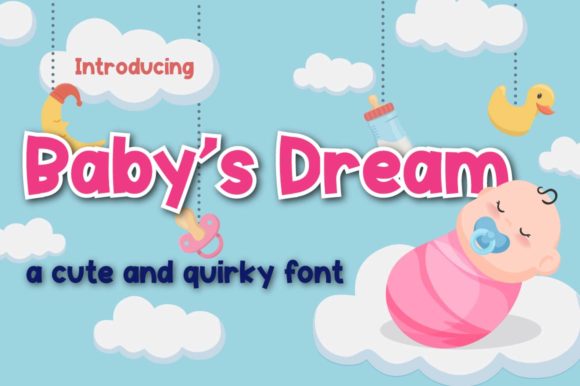
Baby’s Dream Font: The Ultimate Guide to This Whimsical Display Font
Baby’s Dream is a cute and quirky font that has captured the hearts of designers and crafters alike. This enchanting display font has the power to turn any creative idea into a true standout, making it a must-have for anyone looking to add a touch of magic to their projects. In this comprehensive guide, we’ll dive into the world of Baby’s Dream font, exploring its features, uses, and benefits.
The Charm of Baby’s Dream Font
Baby’s Dream font is a one-of-a-kind display font that exudes a sense of playfulness and charm. Its unique and quirky design makes it perfect for projects that require a touch of whimsy, such as children’s books, baby shower invitations, and nursery decor. The font’s enchanting letters are carefully crafted to evoke a sense of wonder and fantasy, making it an excellent choice for designers and crafters who want to create something truly special.
Key Features of Baby’s Dream Font
- Unique and Quirky Design: Baby’s Dream font boasts a distinctive design that sets it apart from other fonts. Its letters are carefully crafted to create a sense of playfulness and charm.
- Enchanting Display Font: This font is perfect for display purposes, making it ideal for headlines, titles, and other attention-grabbing elements.
- High-Quality Letters: Each letter in Baby’s Dream font is meticulously designed to ensure high-quality and clear representation, even at large sizes.
Uses of Baby’s Dream Font
Baby’s Dream font is an incredibly versatile font that can be used in a wide range of projects, including:
- Children’s Books and Nursery Rhymes: The font’s playful and whimsical design makes it perfect for children’s books and nursery rhymes.
- Baby Shower Invitations and Decor: Baby’s Dream font is an excellent choice for baby shower invitations, decorations, and other celebratory materials.
- Signs and Posters: The font’s bold and eye-catching design makes it ideal for signs and posters that require attention-grabbing headlines.
- Digital and Print Media: Baby’s Dream font can be used in a variety of digital and print media, including social media graphics, blogs, and magazines.
Benefits of Using Baby’s Dream Font
Using Baby’s Dream font in your projects offers a range of benefits, including:
- Unique and Memorable Designs: Baby’s Dream font helps create unique and memorable designs that stand out from the crowd.
- Time-Saving: The font’s high-quality letters and easy-to-use design save time and effort in the design process.
- Professional-Looking Results: Baby’s Dream font helps create professional-looking results that are perfect for both personal and commercial projects.
Tips for Using Baby’s Dream Font
- Experiment with Different Sizes and Colors: Play around with different sizes and colors to find the perfect combination for your project.
- Pair with Other Fonts: Baby’s Dream font pairs well with other fonts, so don’t be afraid to experiment with different combinations.
- Use for Display Purposes: Baby’s Dream font is designed for display purposes, so use it to grab attention and make a statement.
Baby’s Dream font is a charming and whimsical display font that has the power to transform any creative idea into a standout project. With its unique and quirky design, high-quality letters, and ease of use, it’s an excellent choice for designers and crafters looking to add a touch of magic to their work. Whether you’re creating children’s books, baby shower invitations, or signs and posters, Baby’s Dream font is sure to delight.